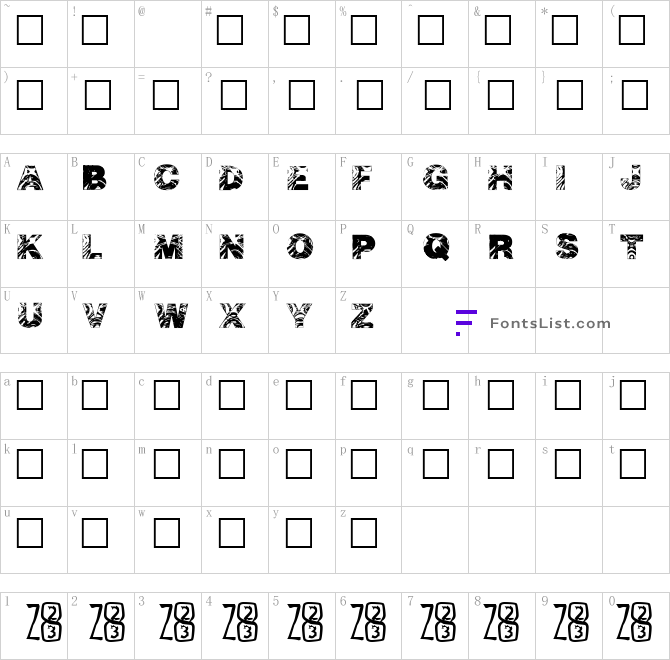
- Font Name:Zone23_Asunder
- Full Name:Asunder by ZONE23
Asunder-by-ZONE23.ttf is a very beautiful artistic font, Asunder-by-ZONE23.ttf is widely used in the design and printing of various books and pictures,Asunder-by-ZONE23.ttf has a strong visual impact,Asunder-by-ZONE23.ttf is a commonly used font in newspapers, magazines and books, and is used in posters, e-commerce Poster design, store design, logo design, font design and other fields.Asunder-by-ZONE23.